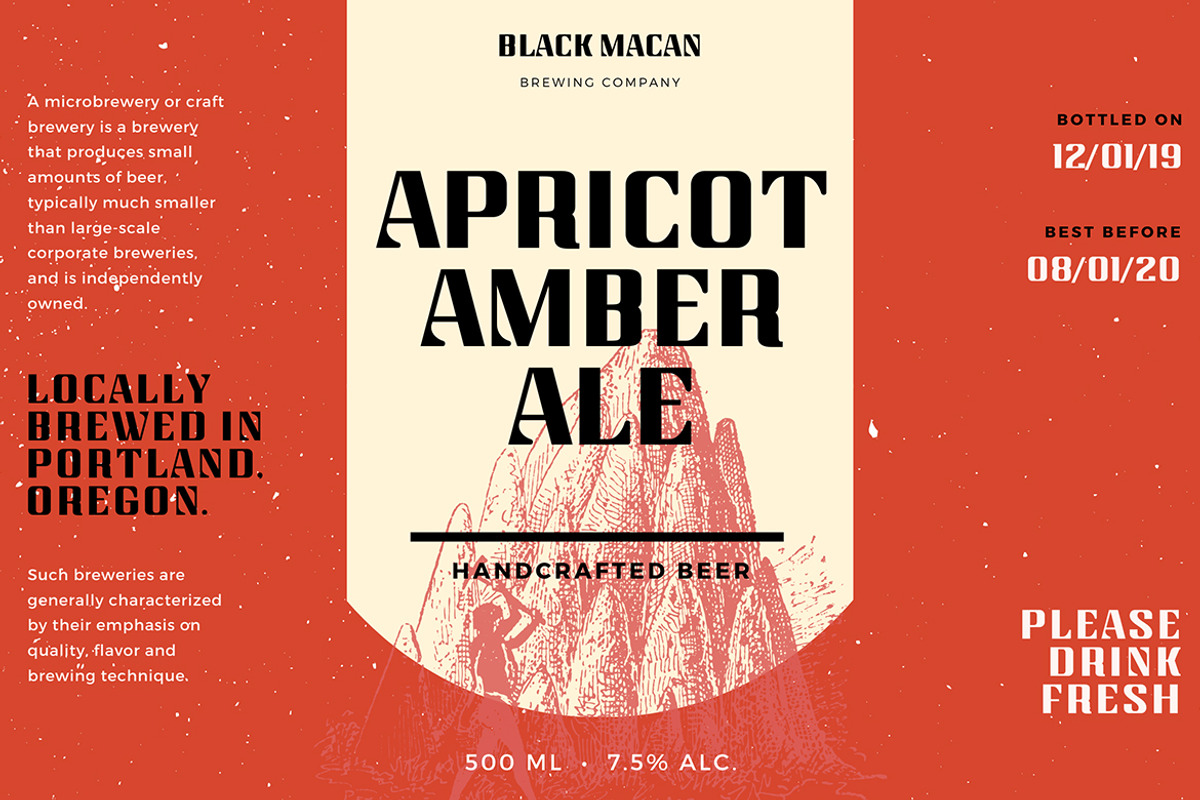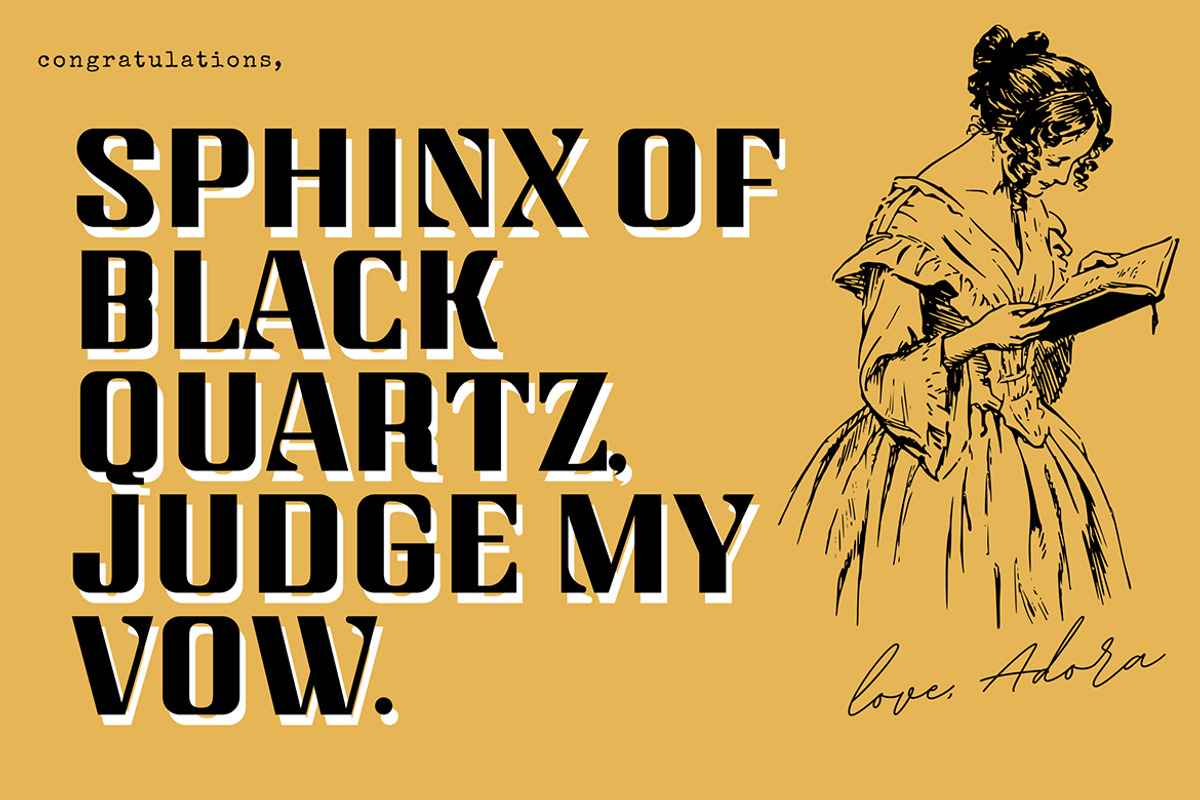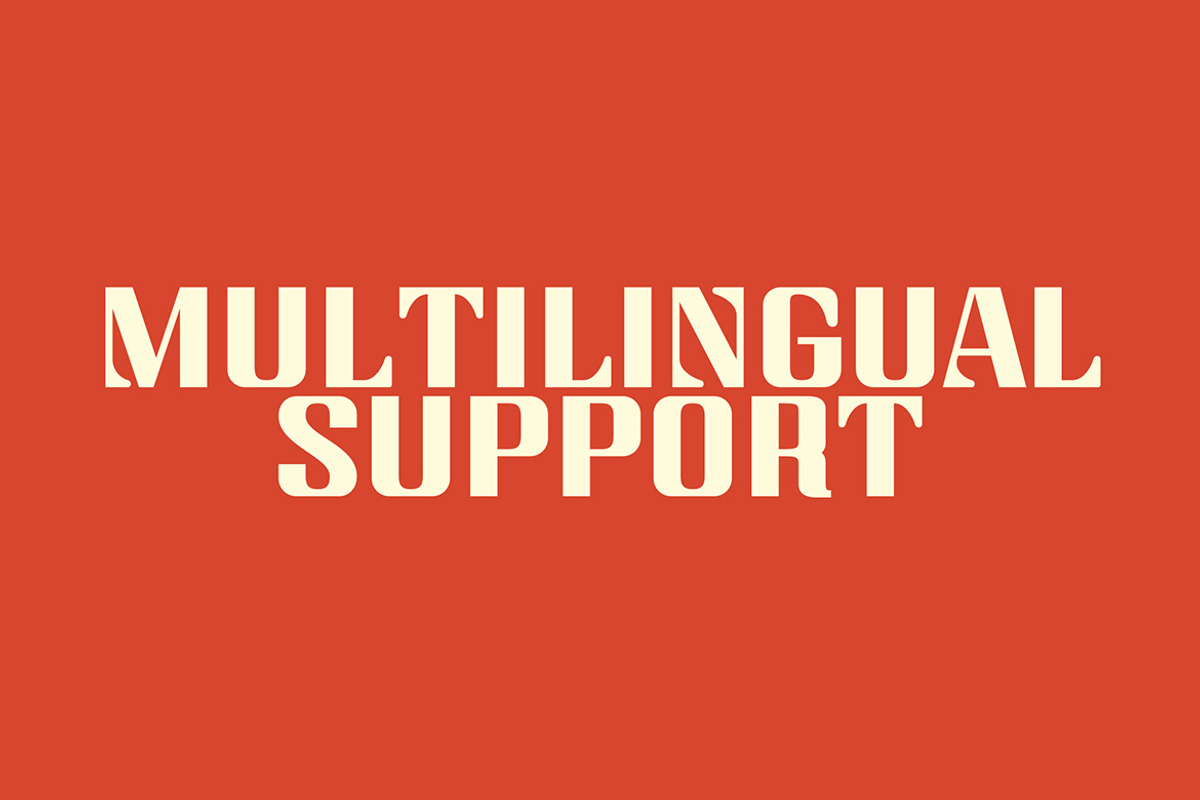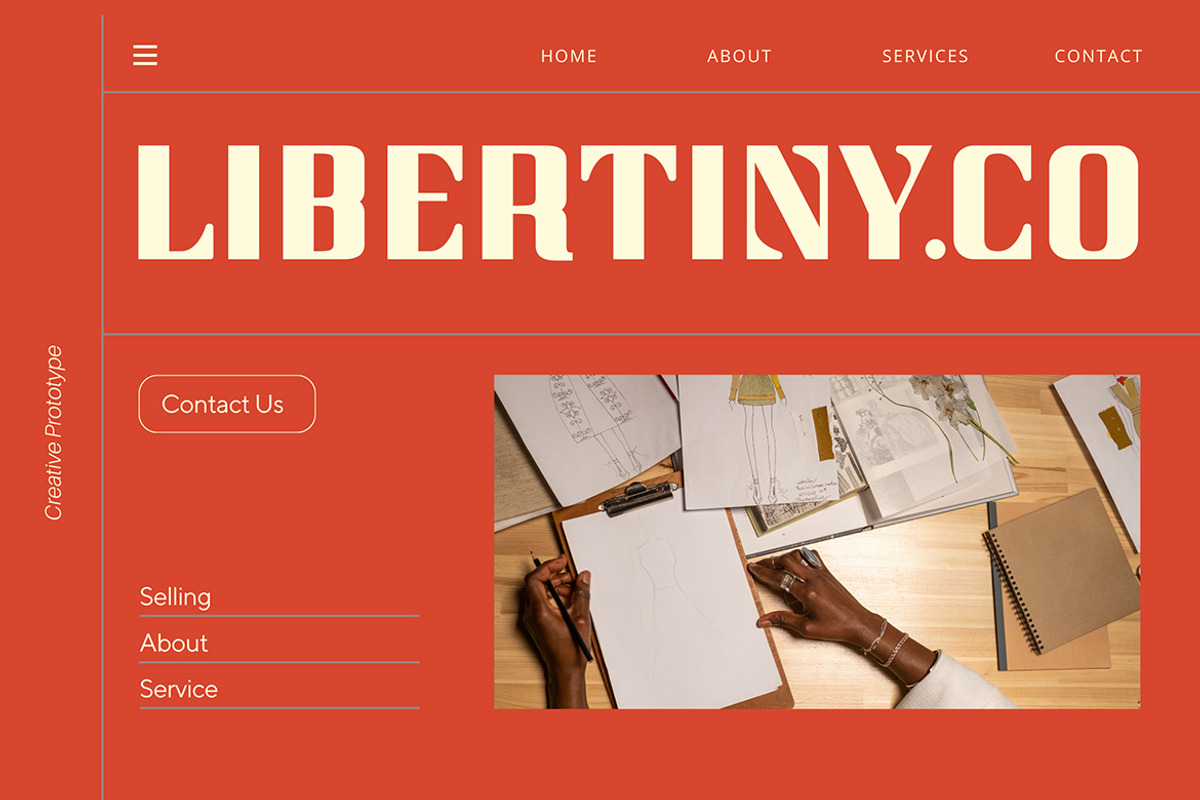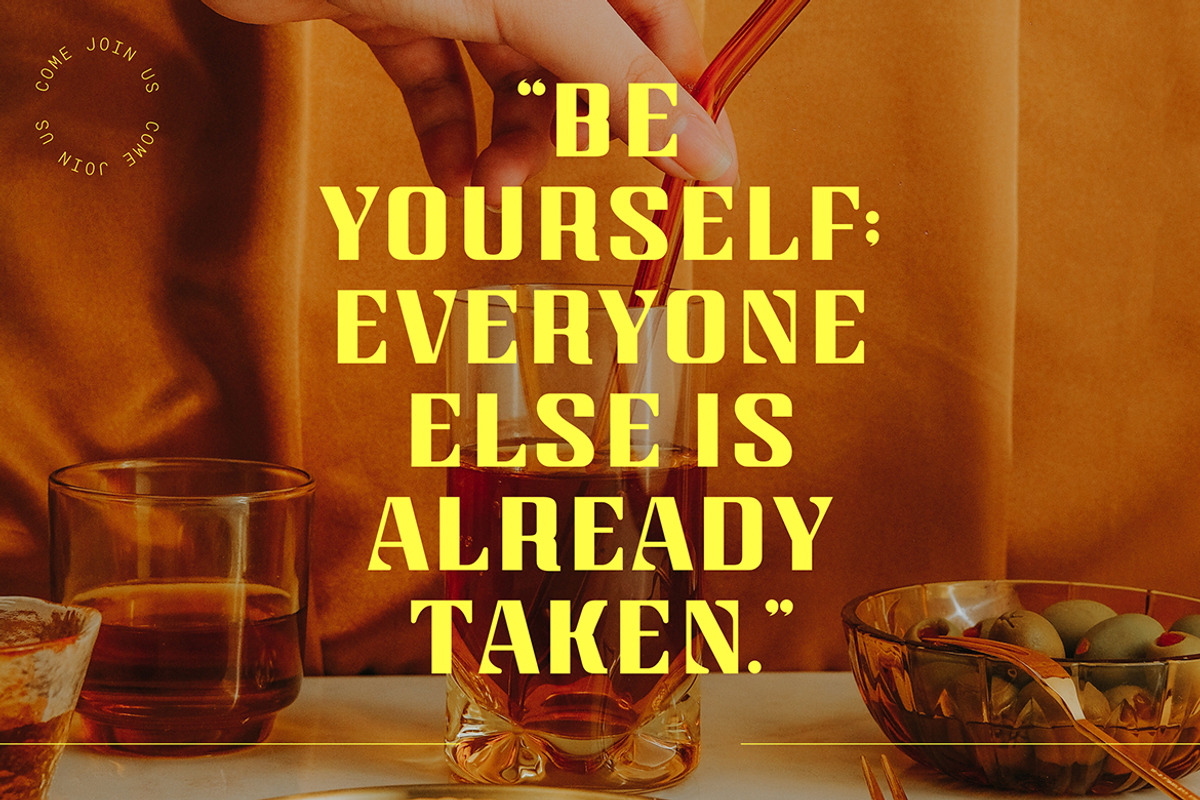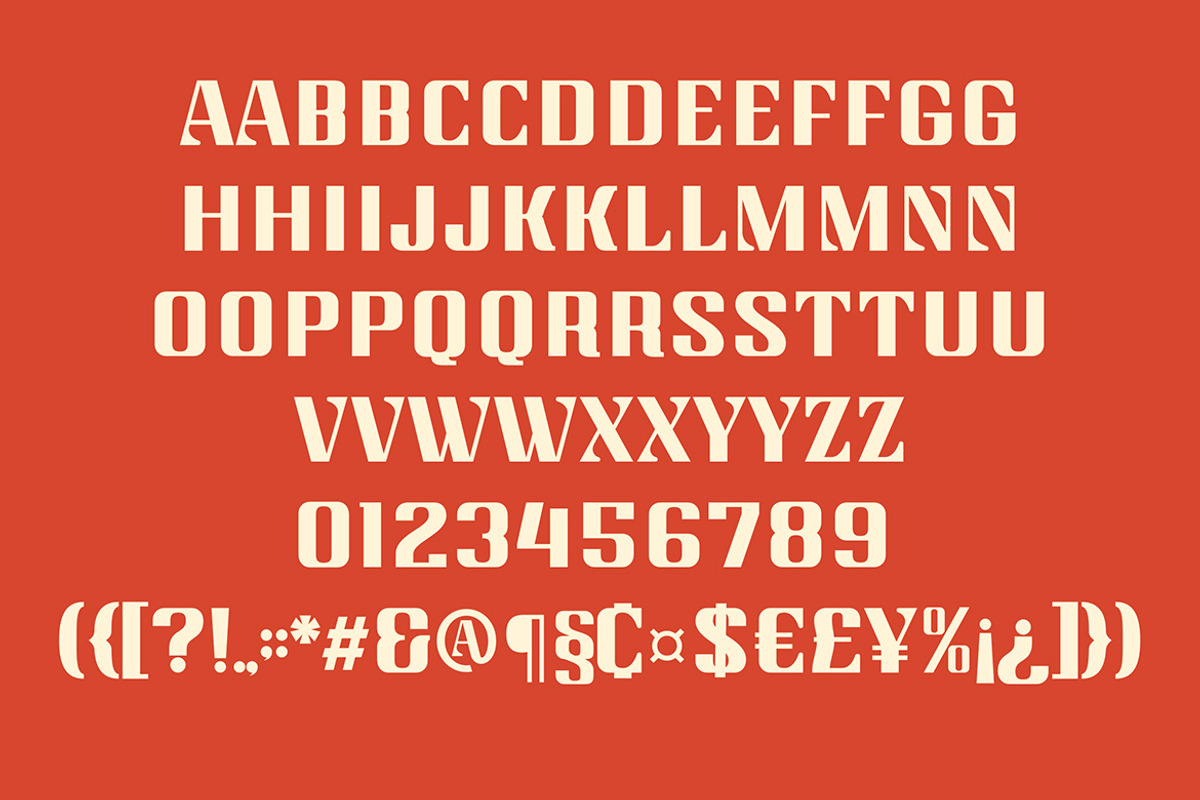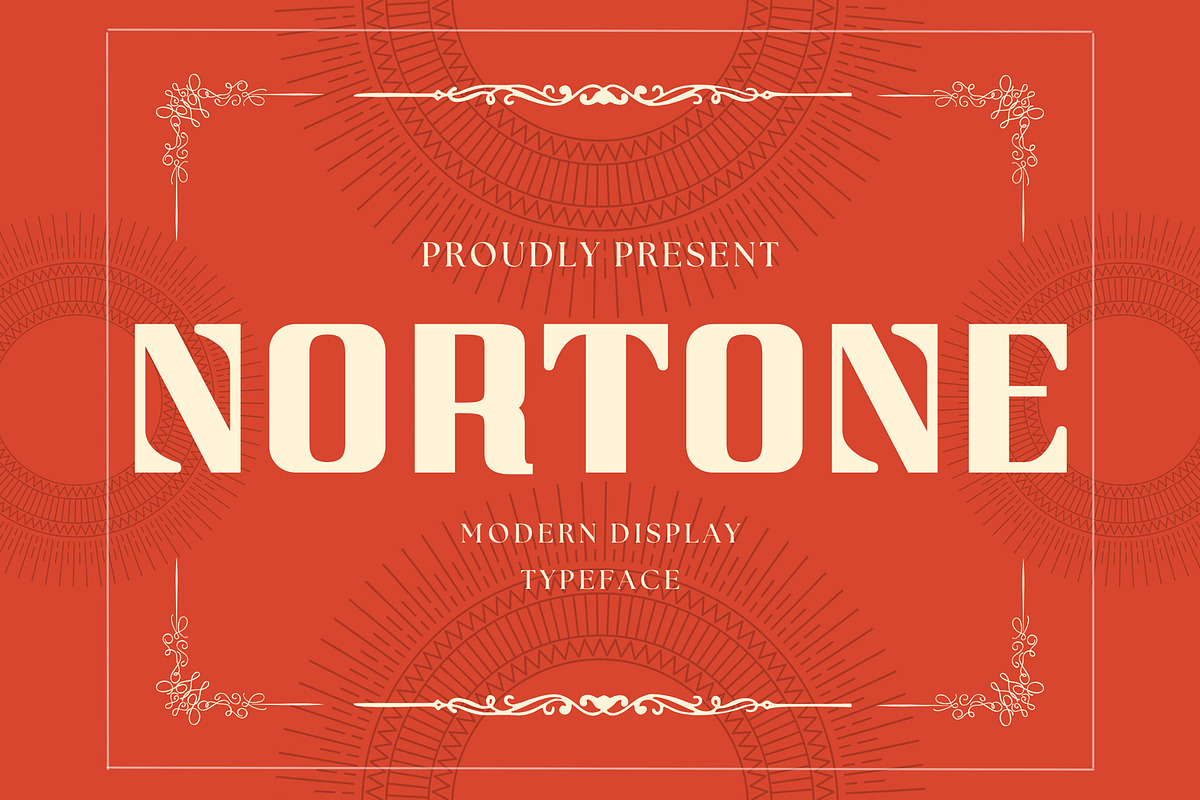
Nortone | Modern Sans
Introducing Nortone - Modern Sans. Nortone is a modern and simple font with more unique ligatures, best used as a display for headings, logos, branding, magazines, product packaging and invitations.